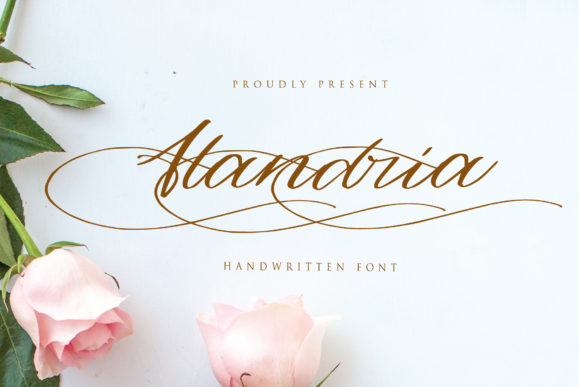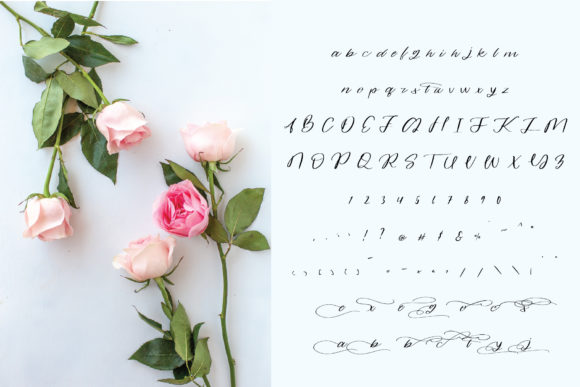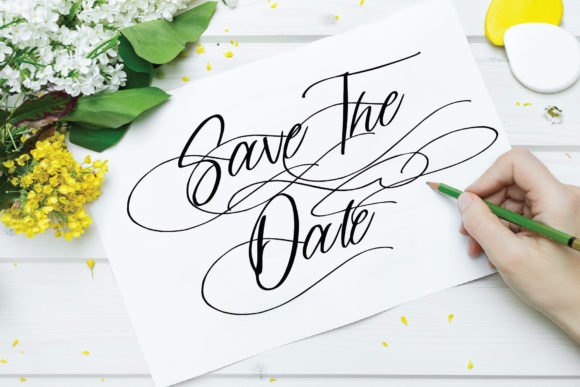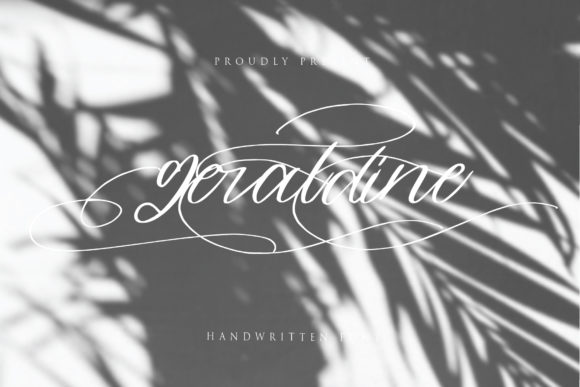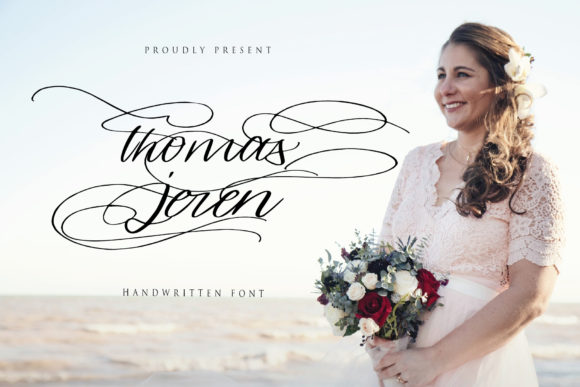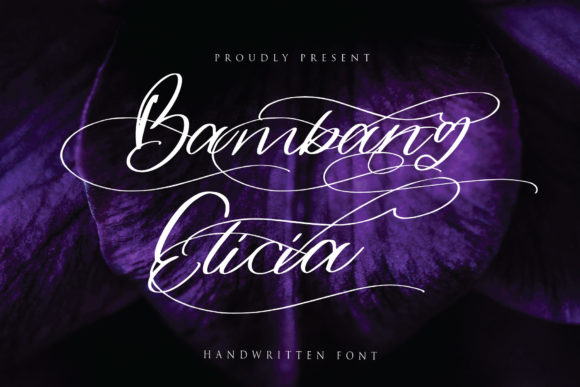
Alandria Font: Elevate Your Designs with Elegance and Sophistication
Are you tired of using the same old fonts in your designs? Look no further than Alandria Font, a stunning handwritten font that is sure to take your projects to the next level. With its elegant and flowing script, Alandria is perfect for designers and crafters who want to add a touch of class and sophistication to their work.
What Makes Alandria Font So Special?
Alandria Font is a beautifully crafted font that boasts a range of impressive features. Here are just a few reasons why it’s a must-have for any designer or crafter:
- Elegant and Flowing Script: Alandria Font features a gorgeous, handwritten script that is both elegant and flowing. Its smooth lines and curves make it perfect for creating beautiful text-based designs.
- PUA Encoded: Alandria Font is PUA (Private Use Area) encoded, which means that you can access all of the glyphs and swashes with ease. This makes it incredibly easy to use and customize the font to suit your needs.
- Classy Calligraphic Influences: Alandria Font maintains its classy calligraphic influences while still feeling contemporary and fresh. This makes it perfect for designers who want to create designs that are both timeless and modern.
Why Choose Alandria Font?
So why should you choose Alandria Font for your next project? Here are just a few reasons why it’s an excellent choice:
- Versatility: Alandria Font is incredibly versatile, making it perfect for a wide range of design projects. From wedding invitations and stationery to branding and advertising, this font can be used in countless ways.
- Ease of Use: Thanks to its PUA encoding, Alandria Font is incredibly easy to use. You can access all of the glyphs and swashes with ease, making it simple to customize the font to suit your needs.
- Unique and Eye-Catching: Alandria Font is a truly unique and eye-catching font that is sure to make your designs stand out. Its elegant and flowing script is unlike anything else out there, making it perfect for designers who want to create something truly special.
How to Use Alandria Font in Your Designs
Using Alandria Font in your designs is incredibly easy. Here are a few tips to get you started:
- Pair it with Other Fonts: Alandria Font pairs perfectly with other fonts, making it easy to create stunning text-based designs. Try pairing it with a bold sans-serif font for a striking contrast.
- Experiment with Glyphs and Swashes: With its PUA encoding, Alandria Font offers a range of glyphs and swashes that you can use to customize your designs. Experiment with different combinations to create something truly unique.
- Use it for Headings and Titles: Alandria Font is perfect for headings and titles, making it a great choice for designers who want to create stunning text-based designs.
In conclusion, Alandria Font is a truly stunning handwritten font that is sure to elevate your designs to the next level. With its elegant and flowing script, PUA encoding, and classy calligraphic influences, it’s the perfect choice for designers and crafters who want to add a touch of class and sophistication to their work. So why wait? Download Alandria Font today and start creating beautiful designs that will leave a lasting impression!
Key Features of Alandria Font
- Elegant and flowing handwritten script
- Classy calligraphic influences
- Contemporary and fresh feel
- Perfect for a wide range of design projects
By incorporating Alandria Font into your designs, you’ll be able to create stunning text-based designs that are sure to impress. So why not give it a try today and see the difference it can make?